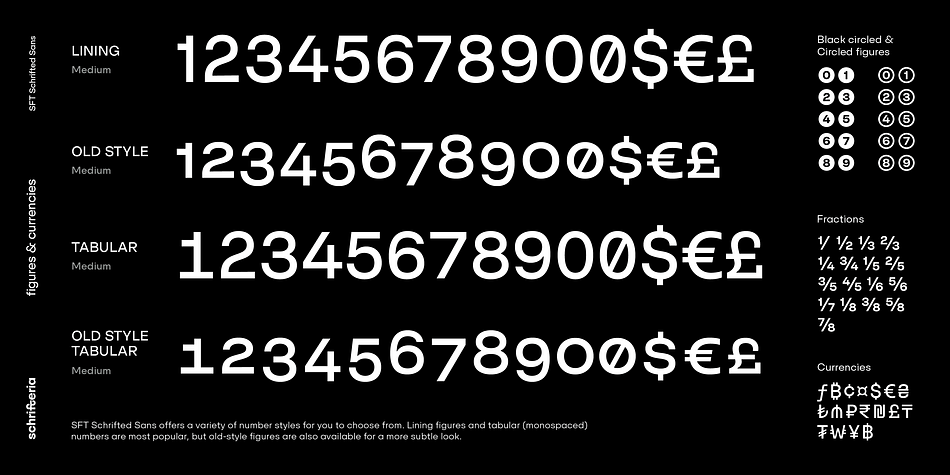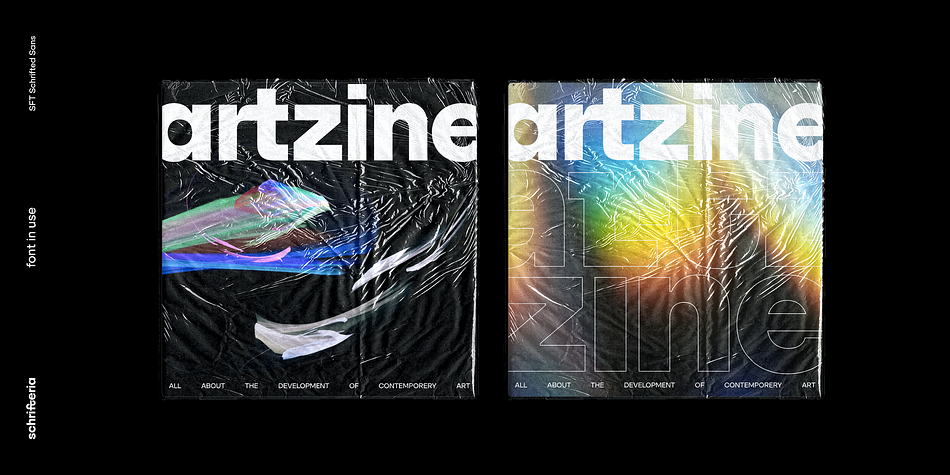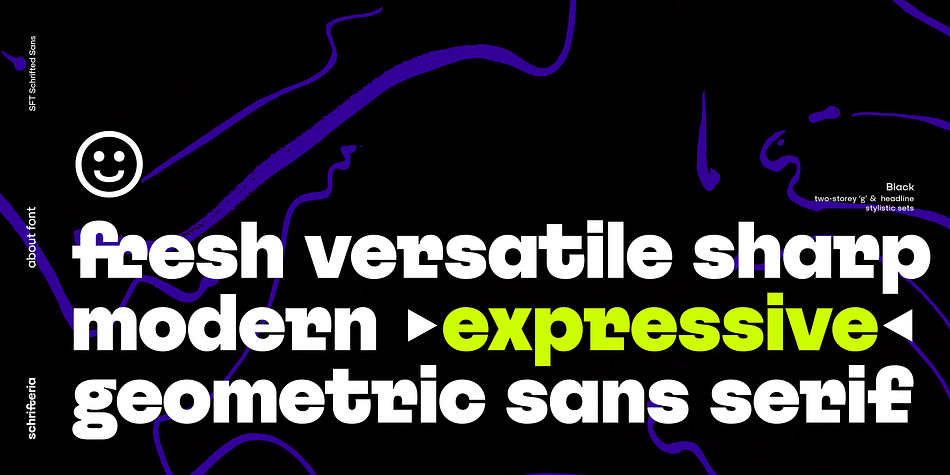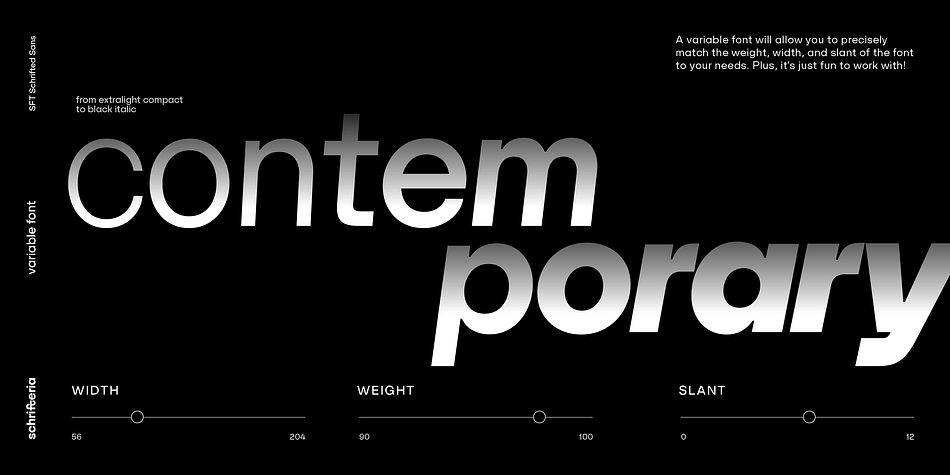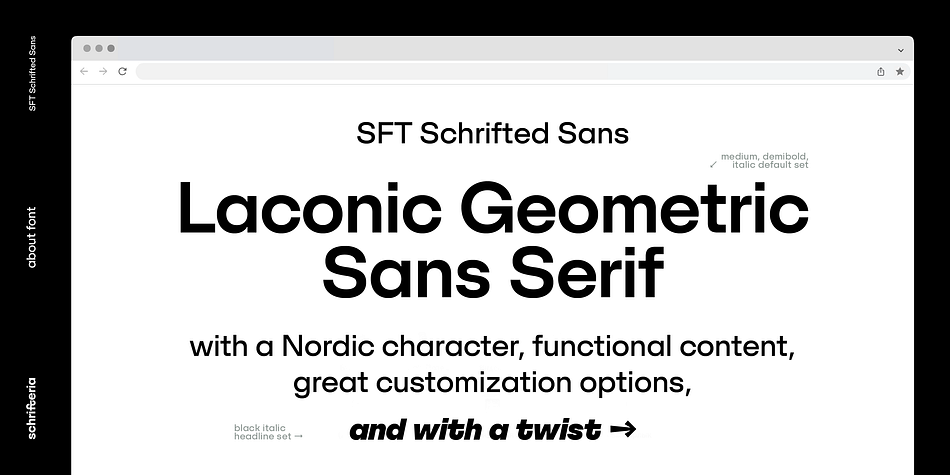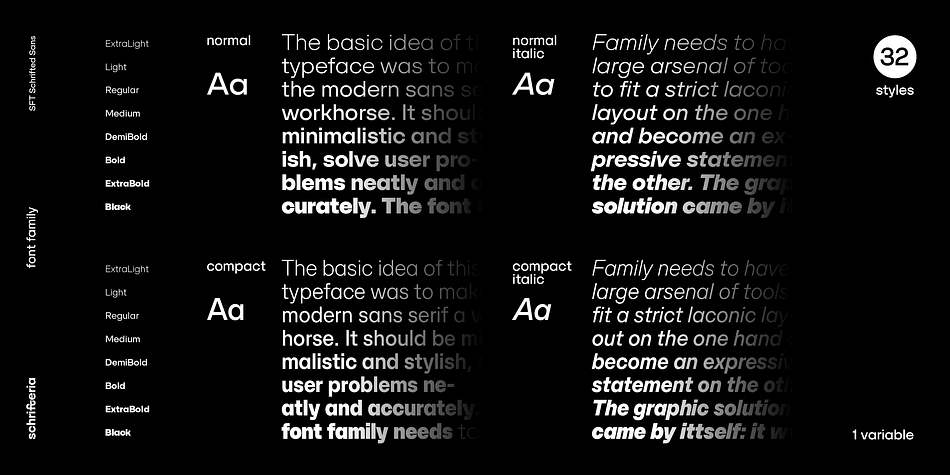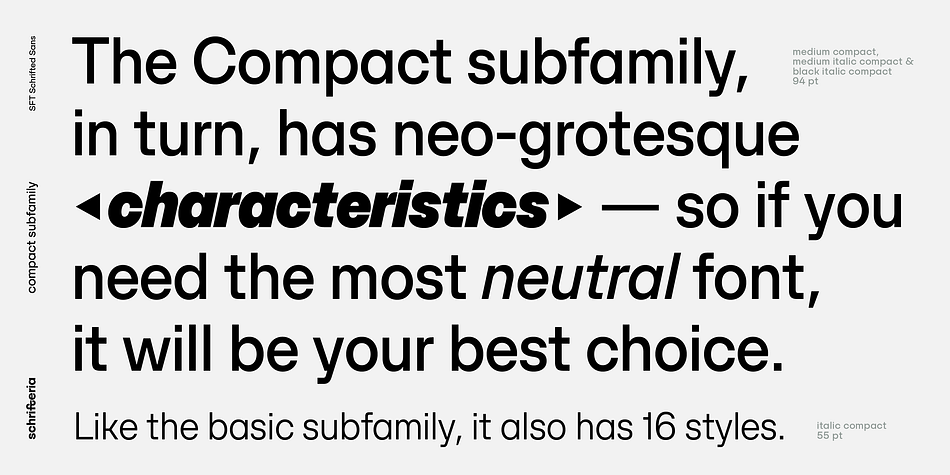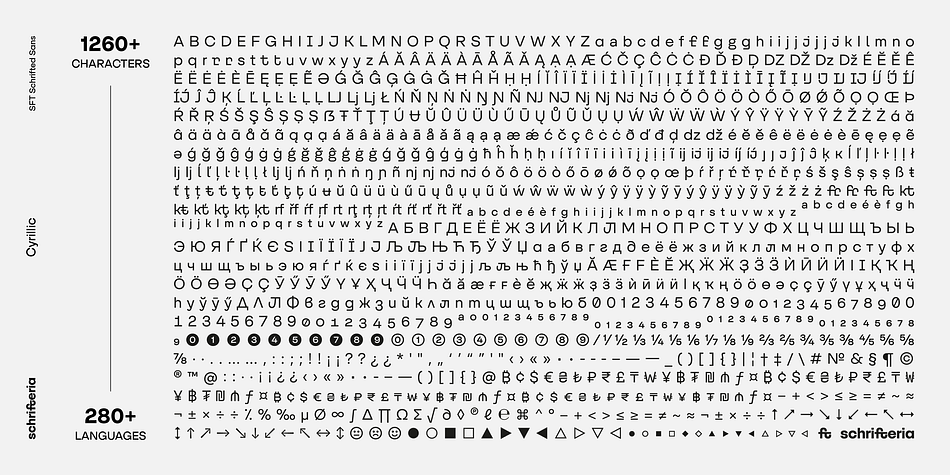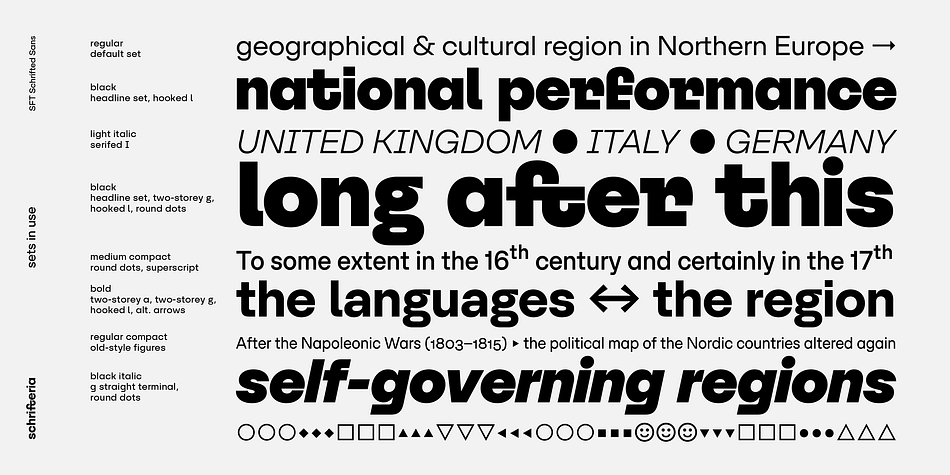
SFT Schrifted Sans
Designed by Yulia Gonina, SFT Schrifted Sans is a sans serif font family. This typeface has thirty-three styles and was published by Schrifteria Foundry.
SFT Schrifted Sans is a functional geometric sans-serif typeface with a Nordic character. It can serve as a stylish text font and as an eccentric headline one. With multiple subfamilies (wide geometric and compact neo-grotesque) and numerous alternatives, SFT Schrifted Sans can be customized for various projects and transformed beyond recognition.
SFT Schrifted Sans has wide language support: 200+ Latin and 60+ Cyrillic languages, including specific localized forms (for example, for Bulgarian and Serbian languages).